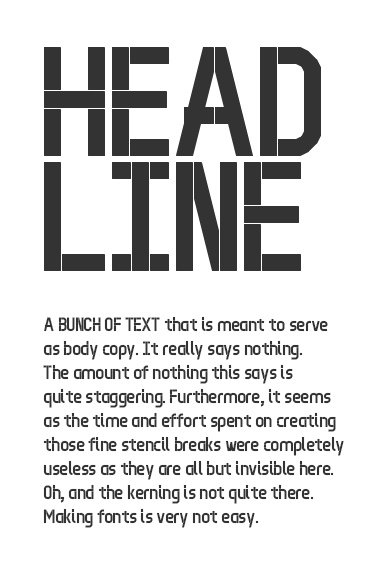
• There's something DIN-esque about it, I know. It may be partly because I've always loved that font. However, no font was the source of inspiration for this. The idea was simply to create something generic. If, in the process, it ended resembling DIN or any other font, it's purely by chance (and geometry). Because of it's eventual looks, the name is an obvious play on the word 'din'.